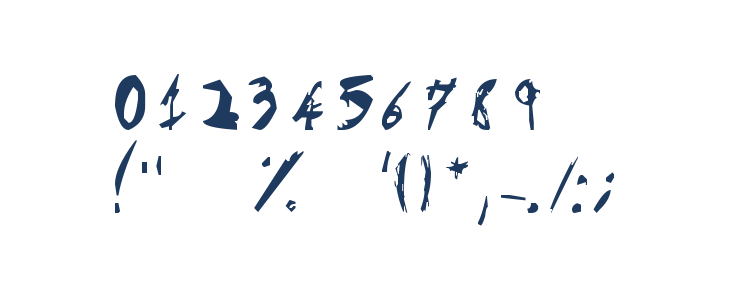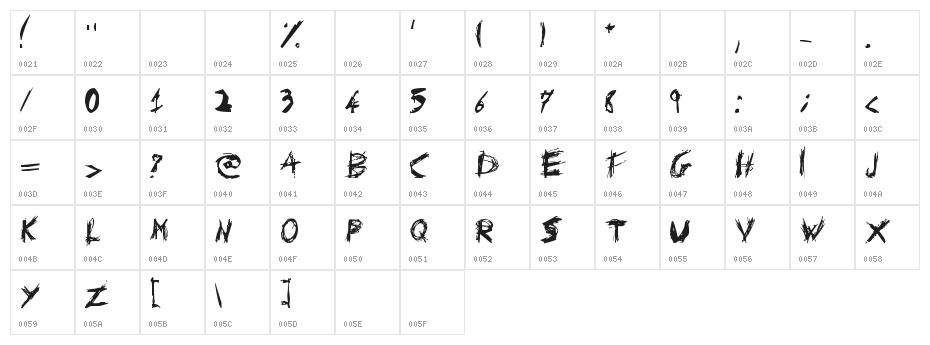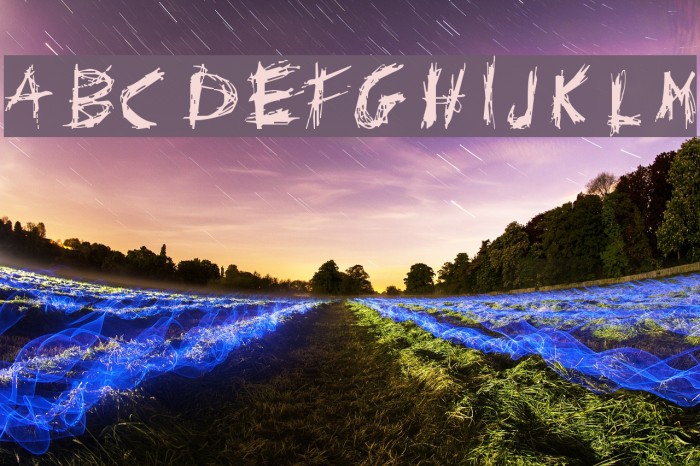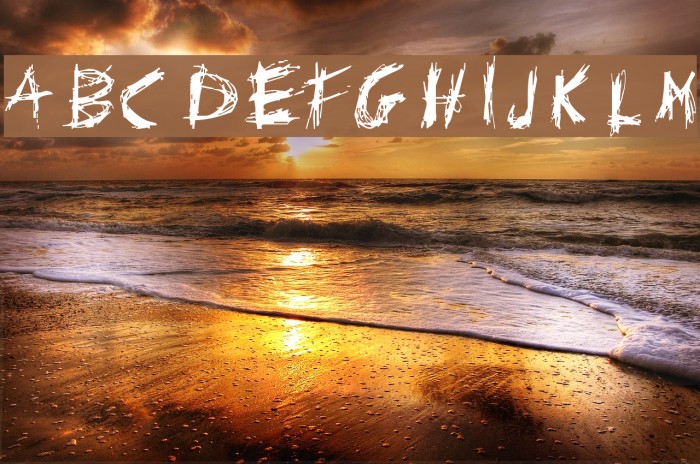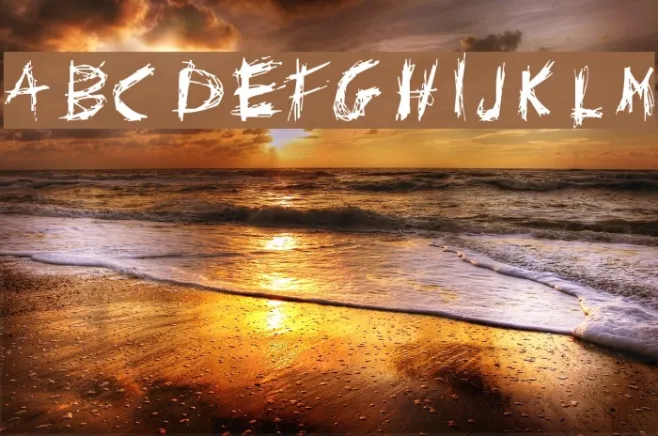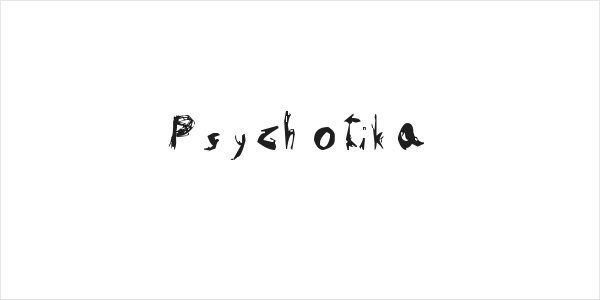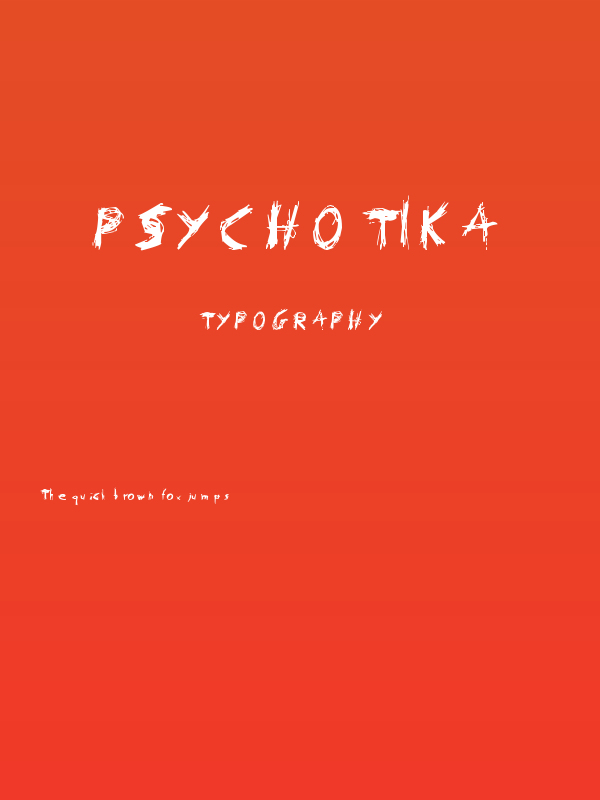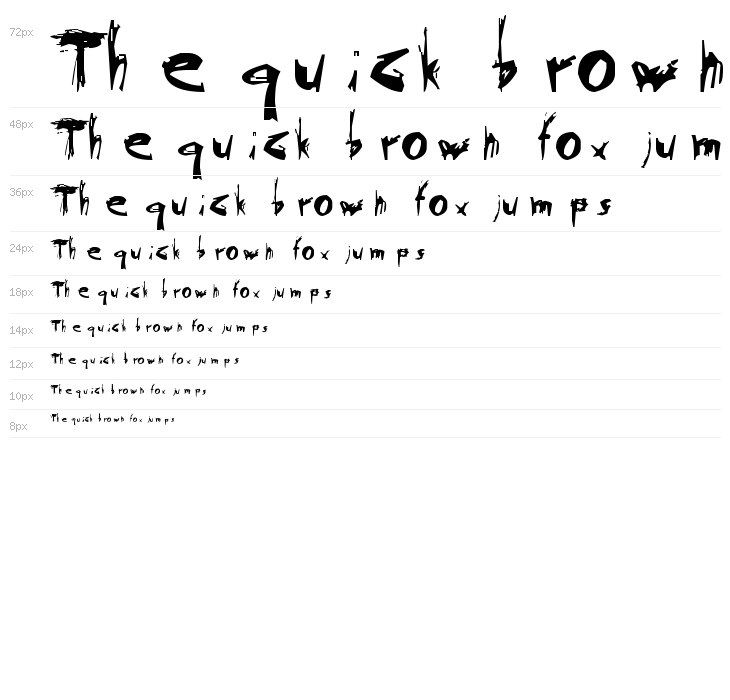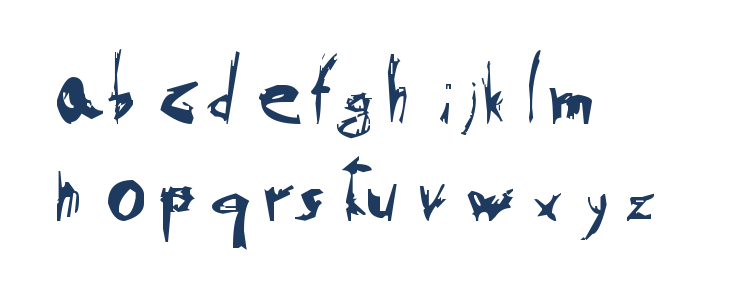
Psychotika Font
Psychotika Description
This font features a chaotic and distressed style, characterized by jagged edges and irregular strokes that give it a raw, edgy appearance. The uppercase and lowercase letters are uniquely distorted, creating a sense of movement and energy. Numbers and special characters follow the same erratic design, enhancing the overall theme of unpredictability. The font's rough texture and uneven lines evoke a sense of urgency and intensity, making it ideal for projects that require a bold and unconventional look.
| Overall Style | Edgy, Chaotic |
| Use Case | Headlines, Posters, Album covers |
| Proposed Projects | Ideal for horror-themed designs, edgy posters, album covers, and rebellious branding. |